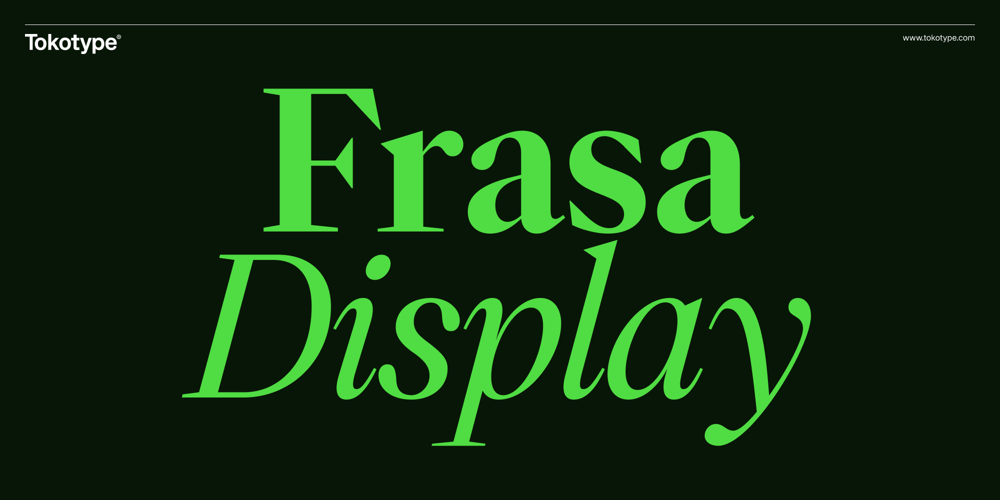
Frasa Display Font Family was designed by Gumpita Rahayu and published by Tokotype. Frasa Display contains 12 styles and family package options. Frasa Display is a additional families based on core Frasa Family, a contemporary serif family with characteristics that arise from the charms of Caslon and a touch of transitional style; the display version design offers distinctive proportions to serve big type headline with more contrast on it. Frasa Display shows that the family is shaped by the traditions of its ancestors through small details that show the personality of the typeface, such as pointed ball terminals and strong shoulders.The italic weights have their own beauty, which is created to humanize the form based on a stylized and natural cursive style with the aim of emphasizing the text’s essential elements. The addition of small caps, old-style figures, ligatures, etc. to this type family satisfies conventional typographic requirements. Frasa Display typefaces can eventually lead to the use of powerful design tools to create editorial and casual design styles.